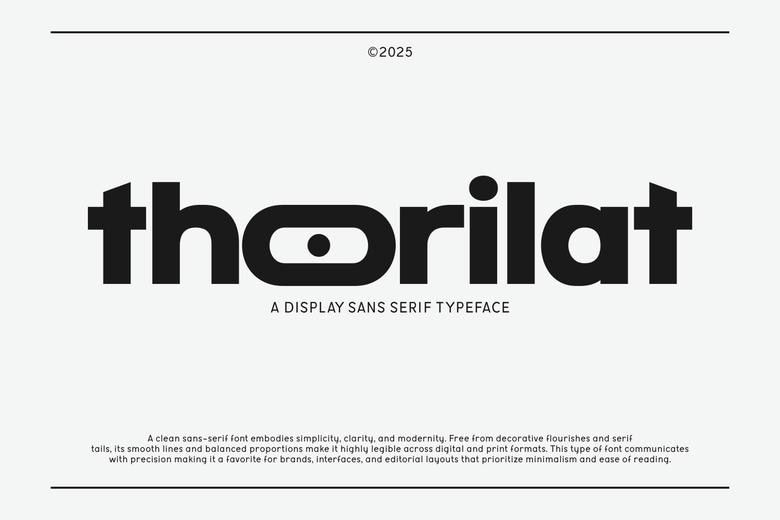
Thorilat Font
Thorilat Geometric sans serif display a bold, futuristically styled and minimalist-structured high tech typeface. It has clean curves, a stylized O which is great as a tech-style branding, en fashionable logos, app interface, and online content that needs to have sharp sense and character.
Thorilat Sans Serif Font